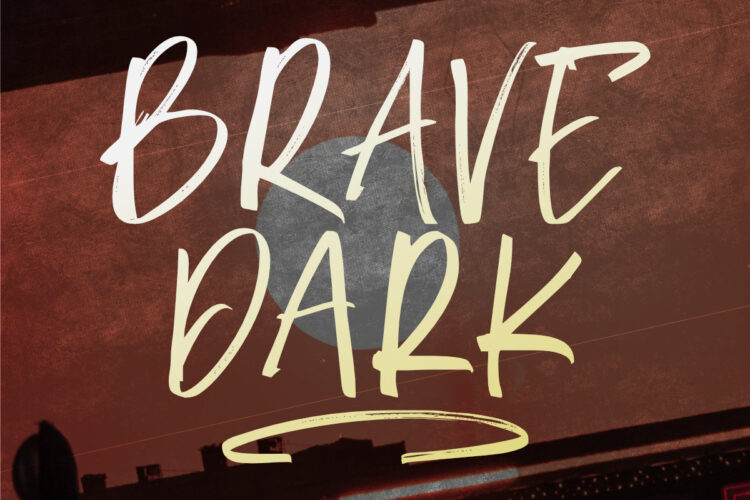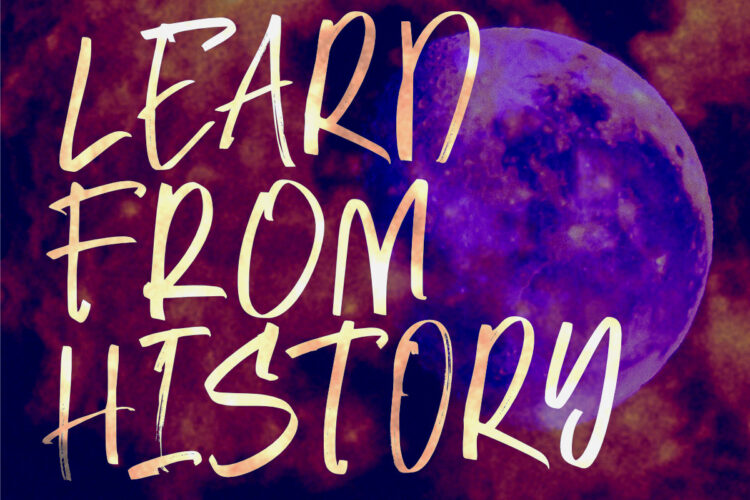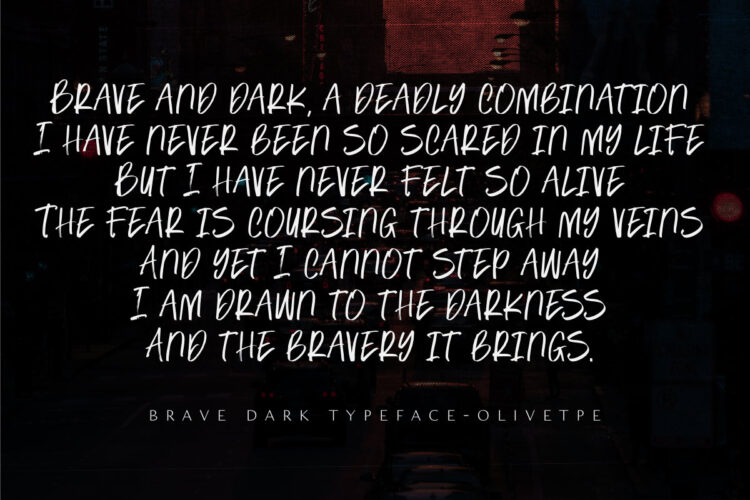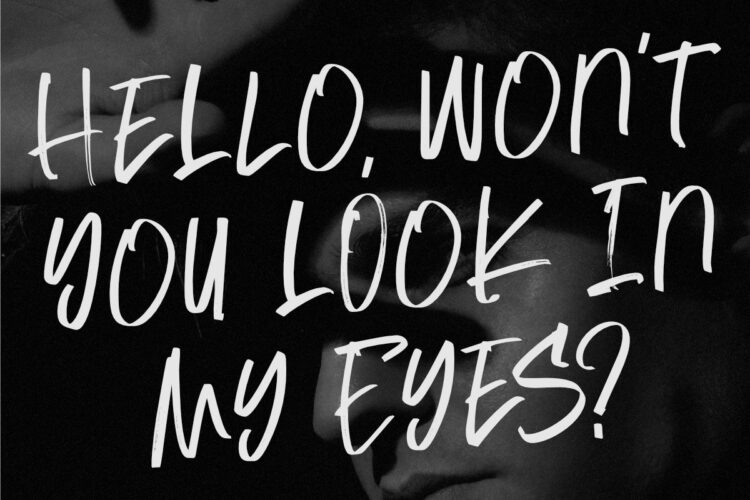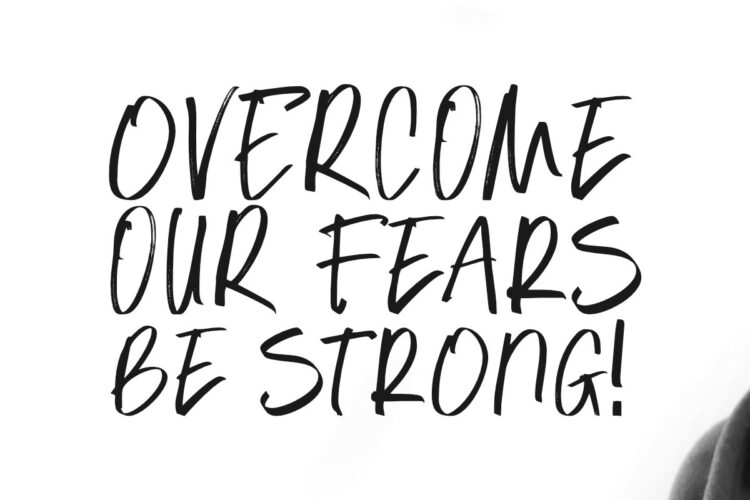
Brave Dark is a creatively hand-drawn brush font. Its unique style is characterized by strong strokes and beautiful, spontaneous-looking lettering. This font will allow you to create an attractive, urban look for your design project.